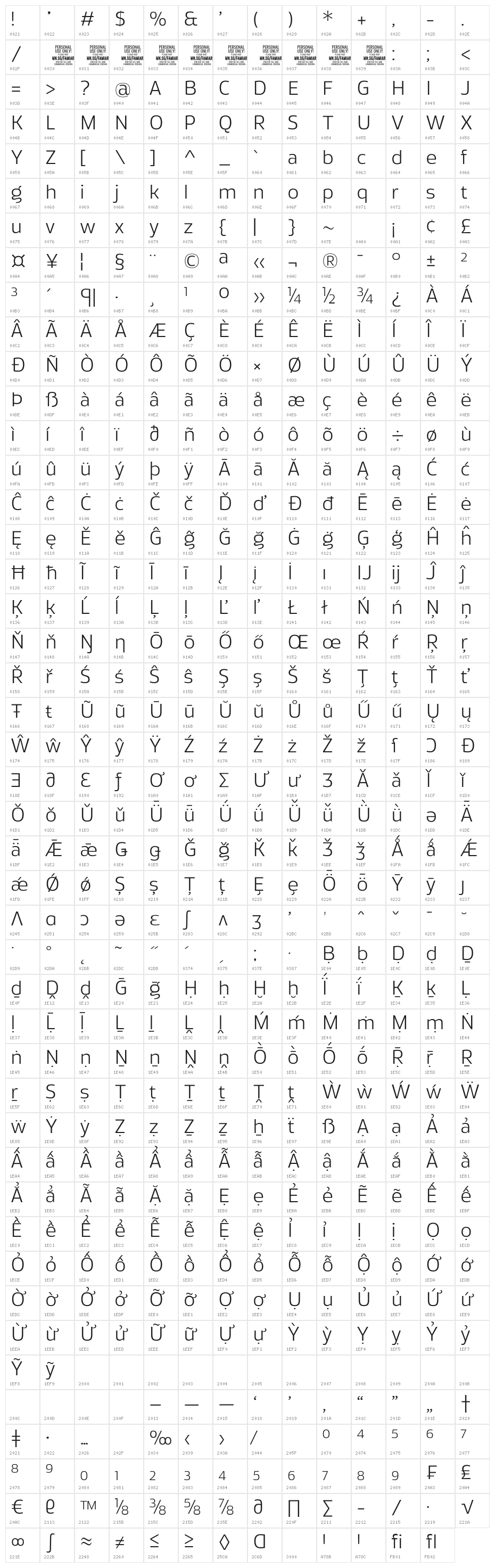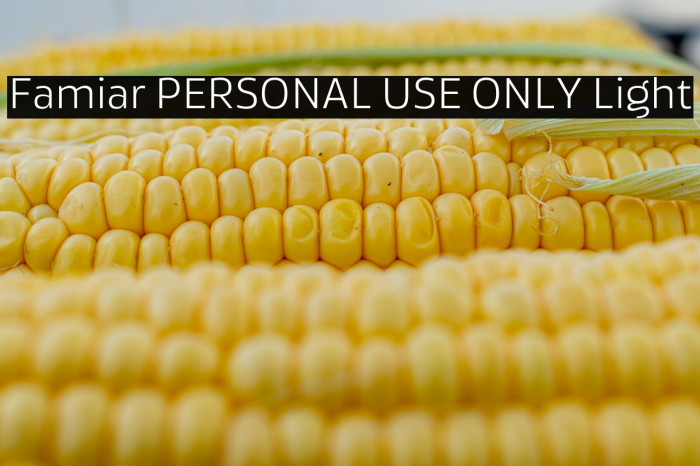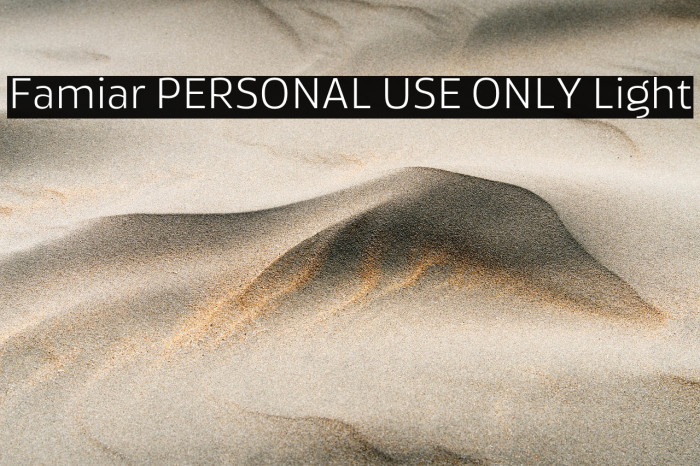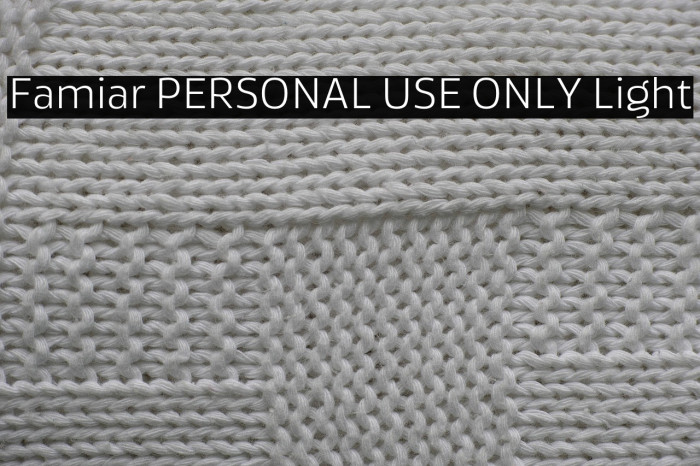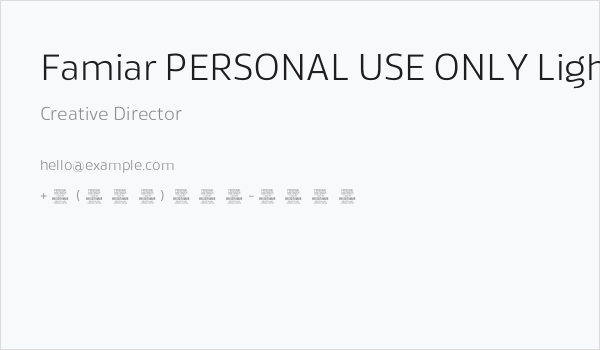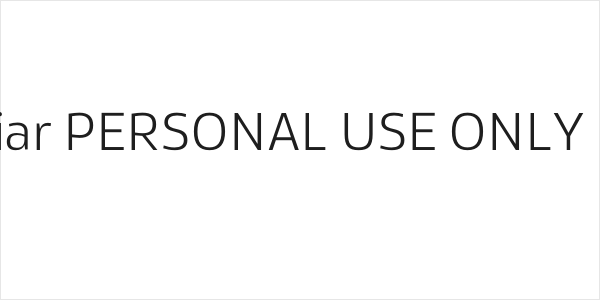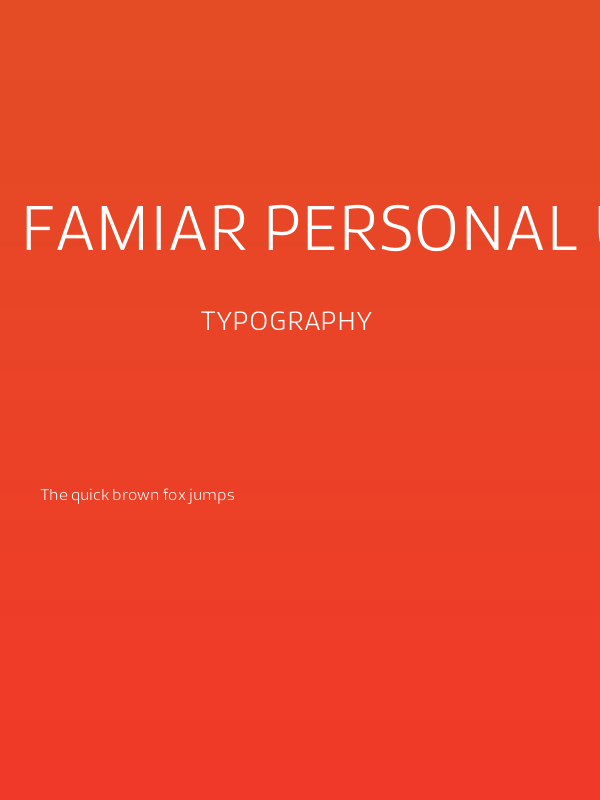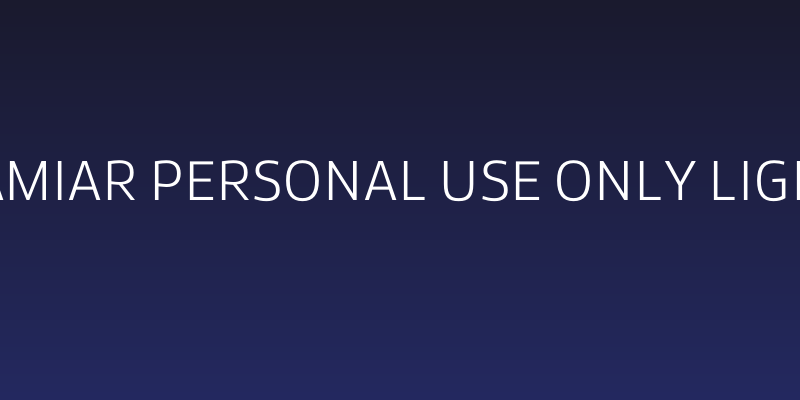
Famiar PERSONAL USE ONLY Light Font
Famiar PERSONAL USE ONLY Light Description
This font features a clean and modern sans-serif design with a light weight, making it ideal for minimalist and contemporary projects. The characters are well-proportioned with a consistent stroke width, providing a harmonious and balanced appearance. The uppercase letters are slightly taller than the lowercase, offering a subtle distinction that enhances readability. The font includes a full set of uppercase and lowercase letters, numerals, and a variety of punctuation marks and special characters. Its simplicity and elegance make it versatile for various design applications.
| Proposed Projects | Ideal for branding, web design, editorial layouts, and corporate materials. |